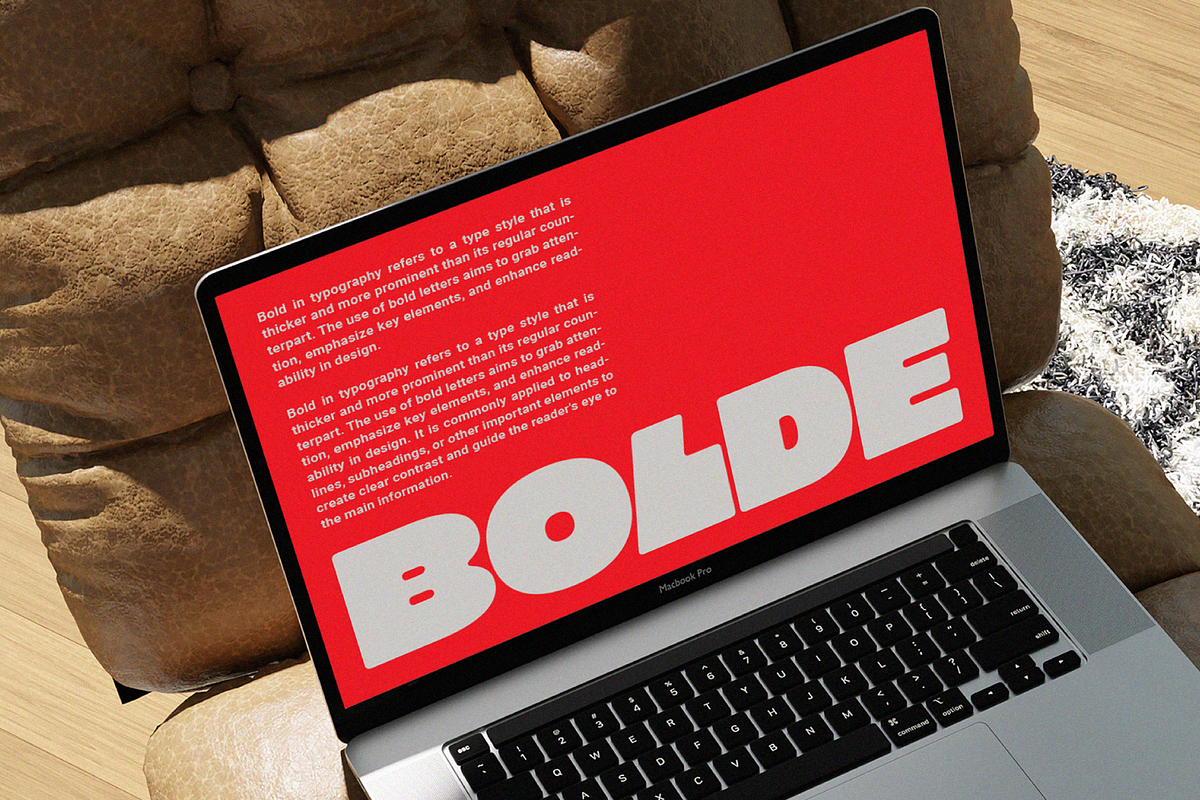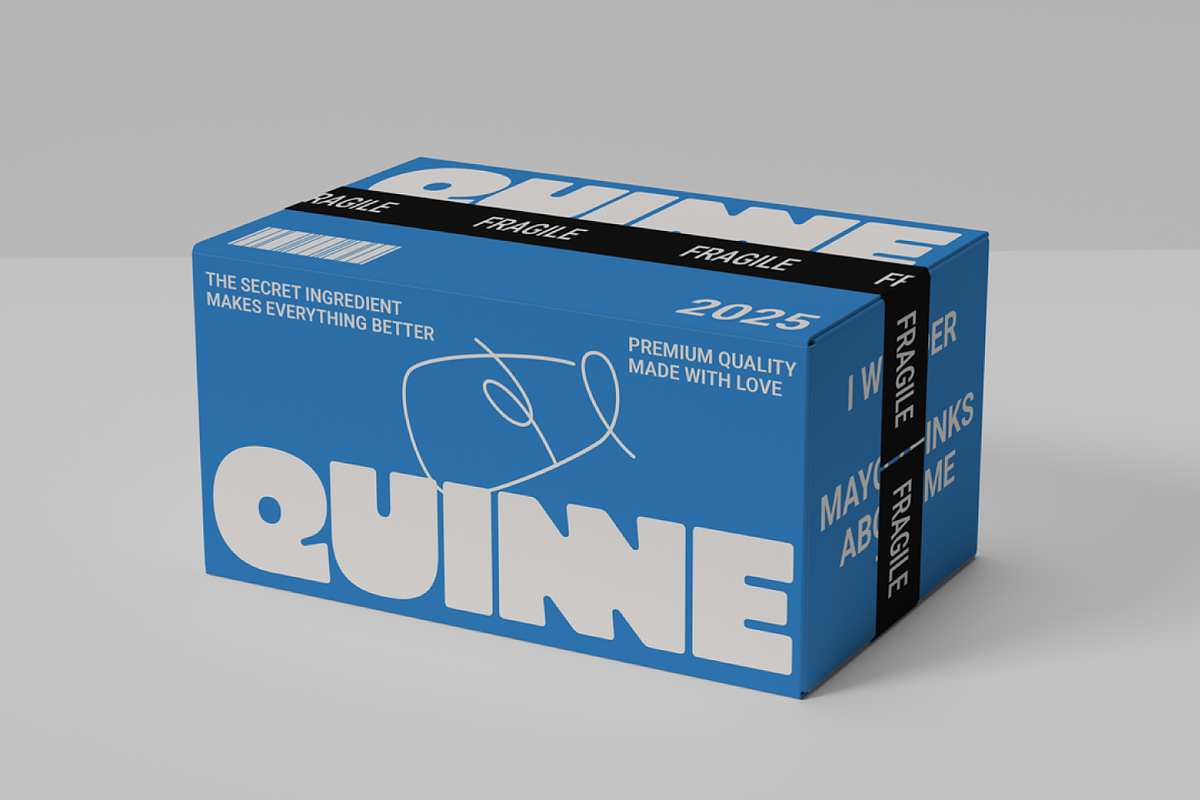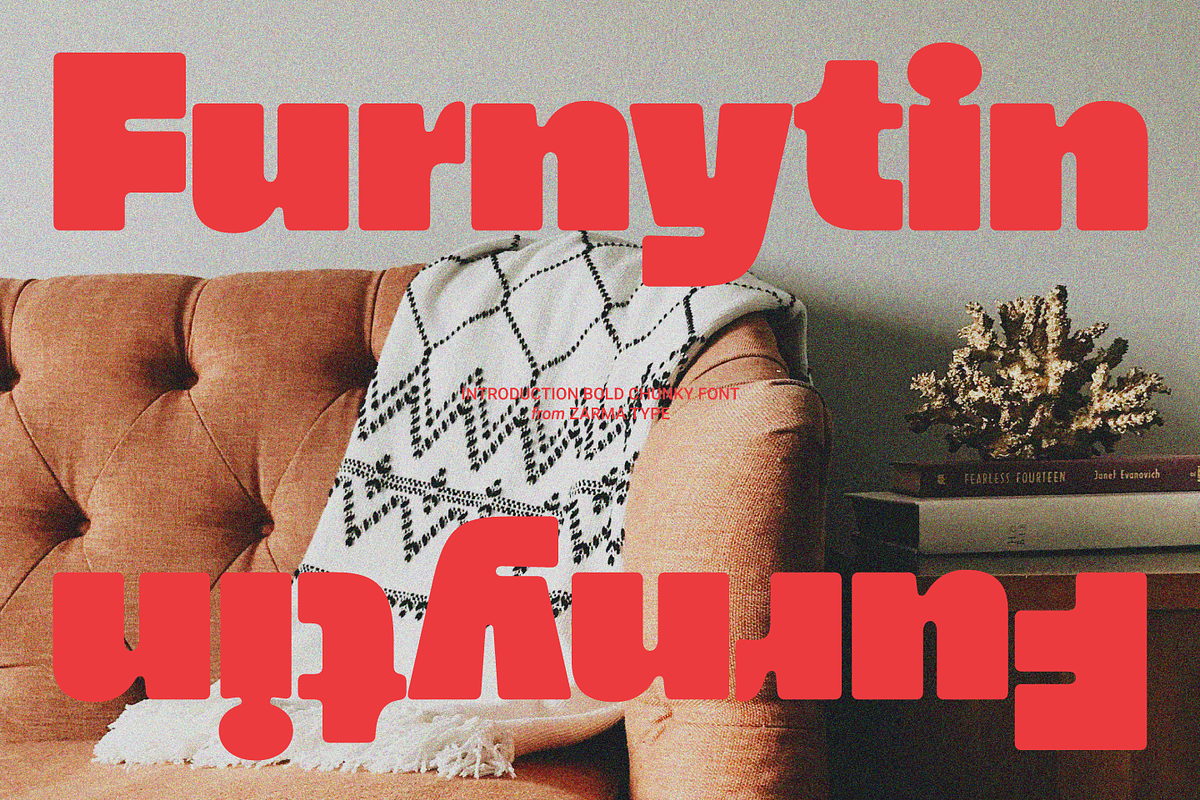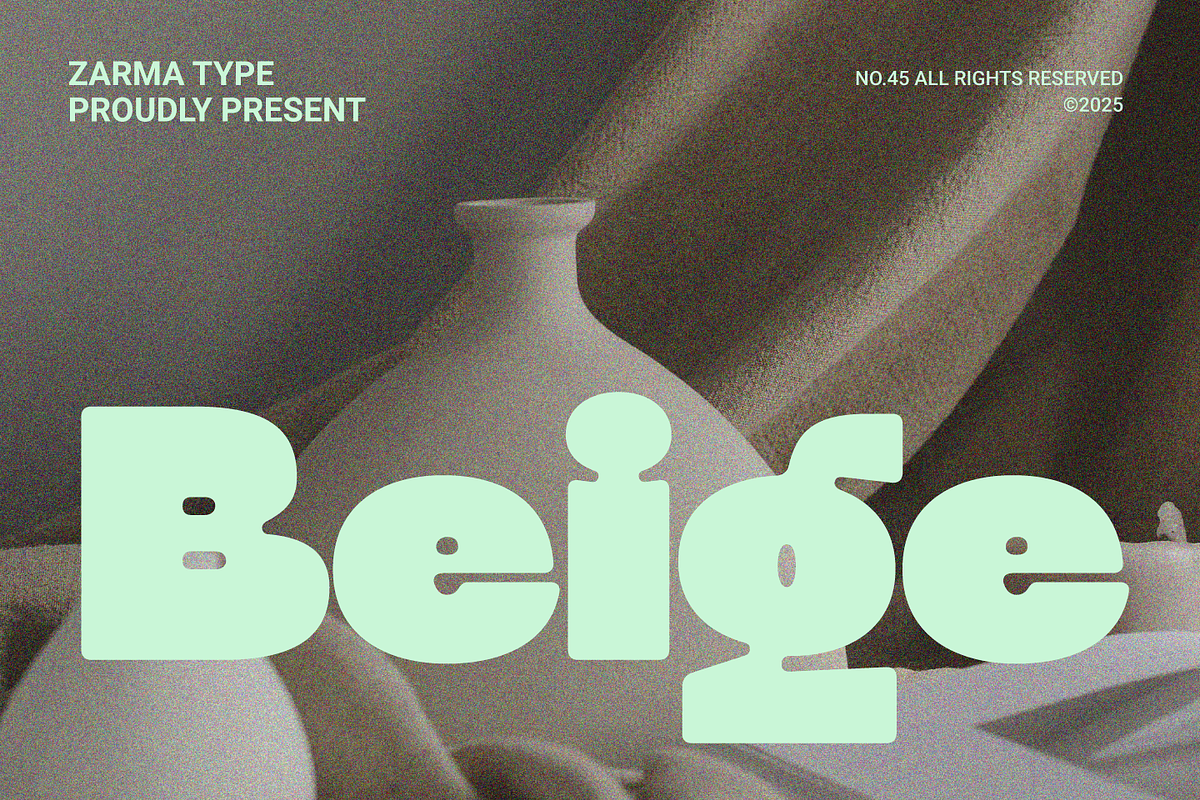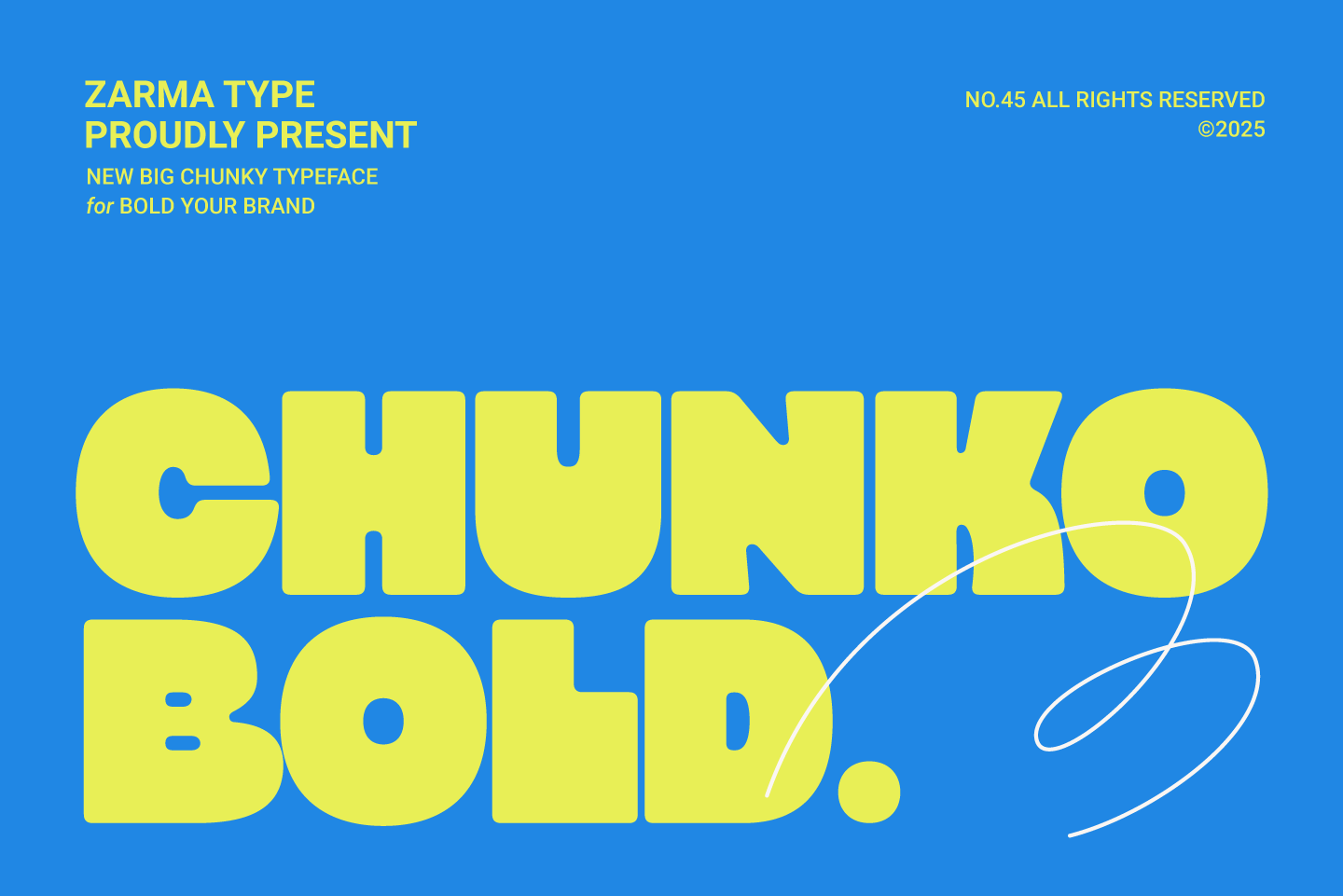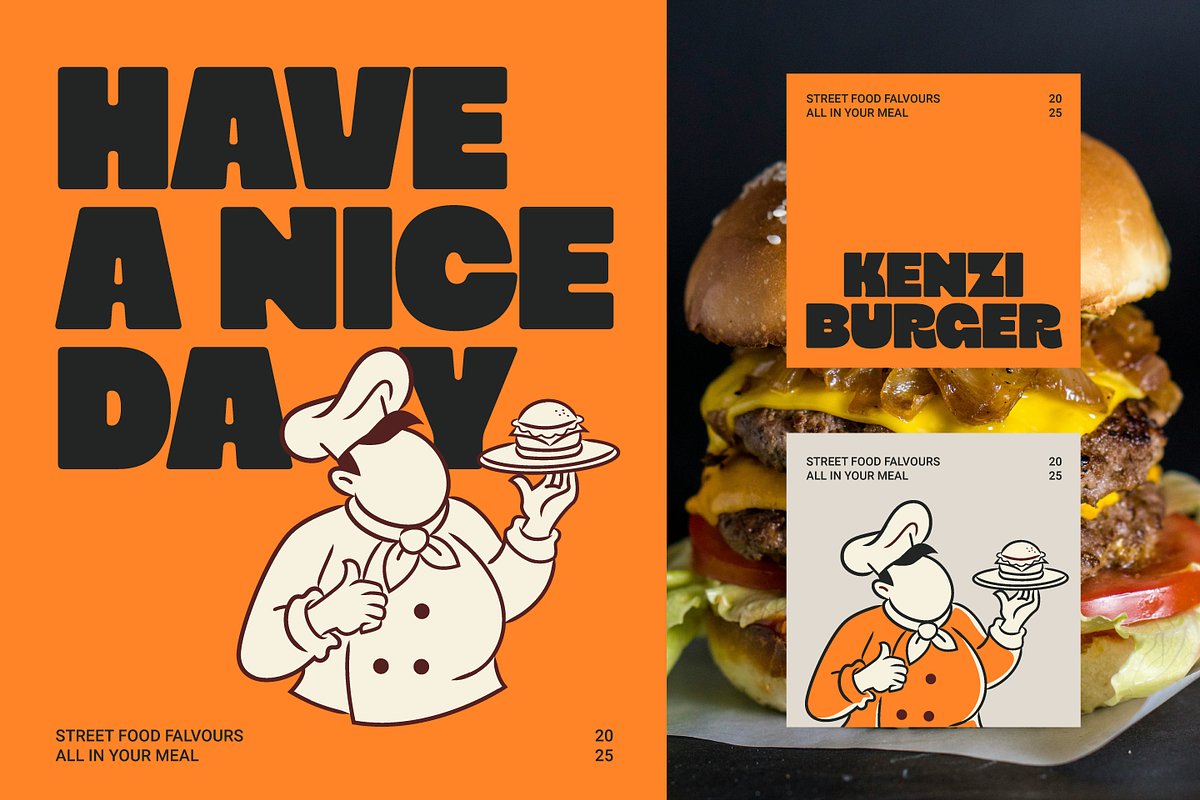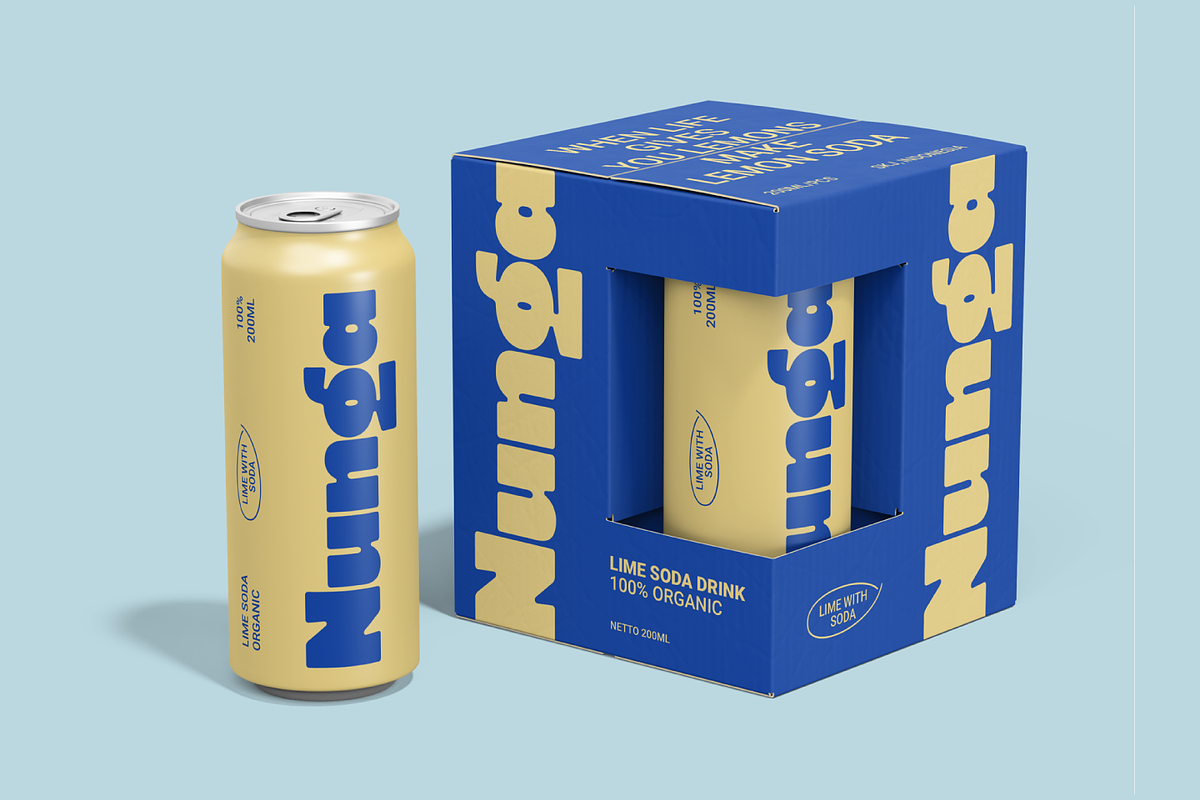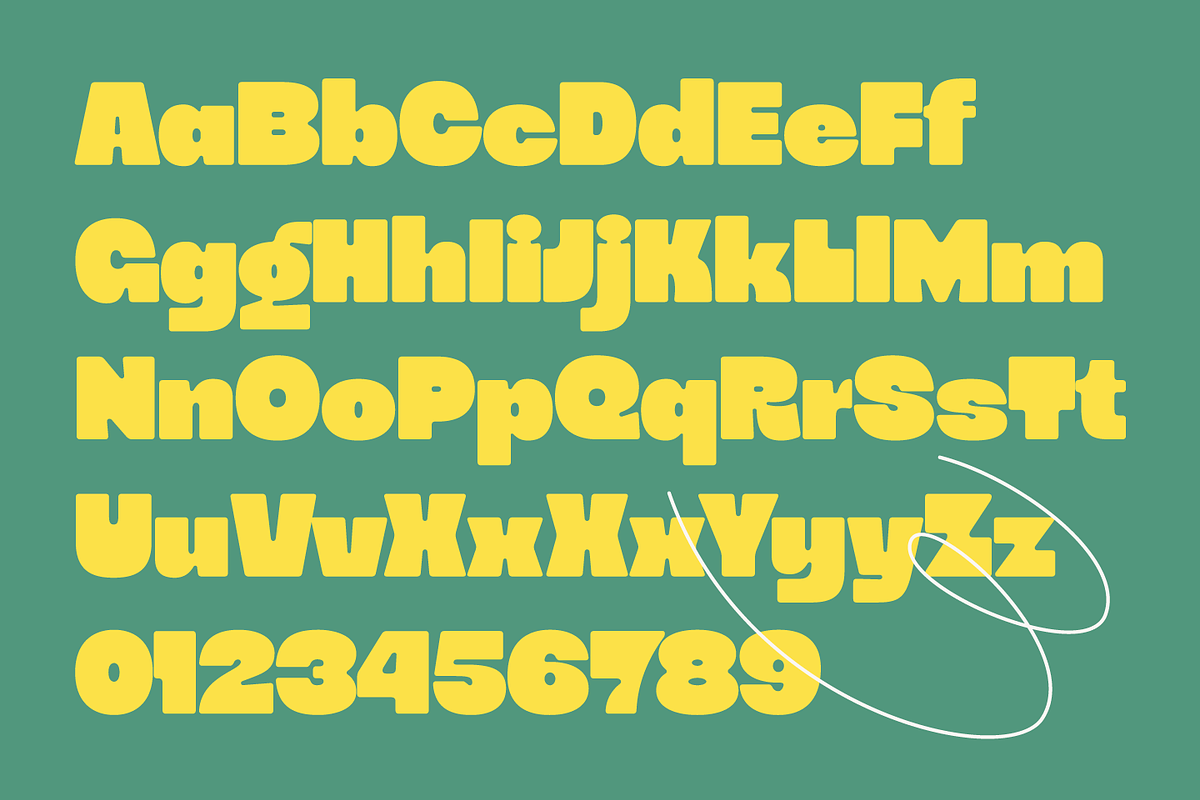
Chunko Bold - Sans Serif Font
Chunko Bold is a powerful display typeface that embodies the principles of bold minimalism - a dominant trend in contemporary design. This confident font combines chunky geometry with modern playfulness, featuring rounded edges and a strong presence that perfectly aligns with today's minimalist design approach. Whether used in stark compositions or clean layouts, Chunko Bold delivers maximum impact while maintaining the essential principles of minimal design aesthetics.
The font's balanced weight distribution and carefully crafted characters shine particularly well in minimalist settings, where typography often becomes the central design element. Each letterform has been meticulously designed to create a cohesive visual rhythm that stands strong on its own, making it ideal for the current trend of typography-driven minimal designs that dominate modern branding and digital spaces.
- Minimal Brand Identity & Packaging
- Contemporary Editorial Design
- Bold Minimalist Layouts
- Modern Food & Beverage Branding
- Clean Social Media Graphics
- Minimal Poster Design
- Typography-focused Digital Content
- Modern Restaurant Menus
Make a bold statement with Chunko Bold - the perfect typeface for brands embracing the bold minimalism movement. Whether you're creating clean, typography-driven designs or powerful minimal layouts, Chunko Bold delivers the perfect balance of impact and simplicity that defines contemporary minimal design. Its versatility in minimal compositions makes it an essential tool for designers looking to create modern, refined visual statements.